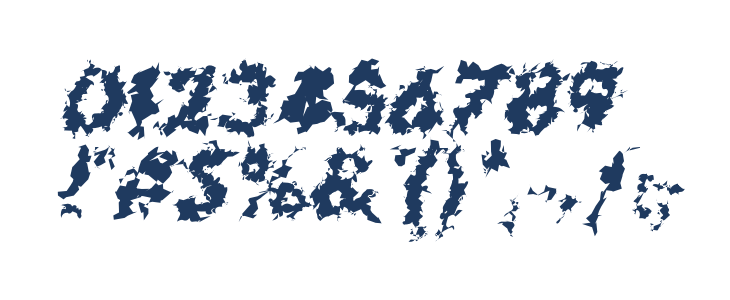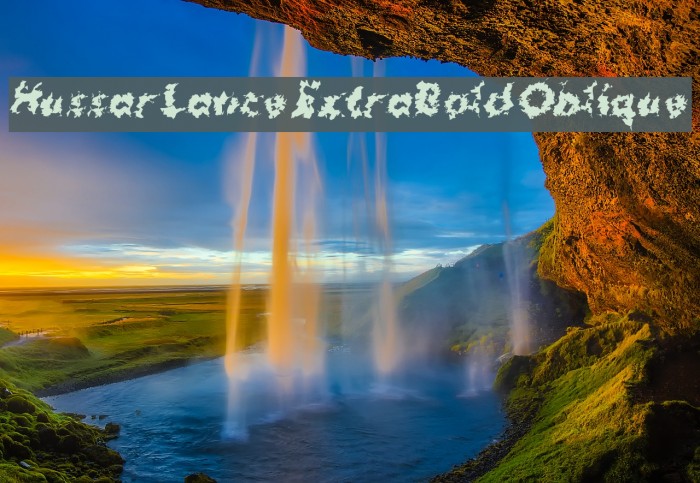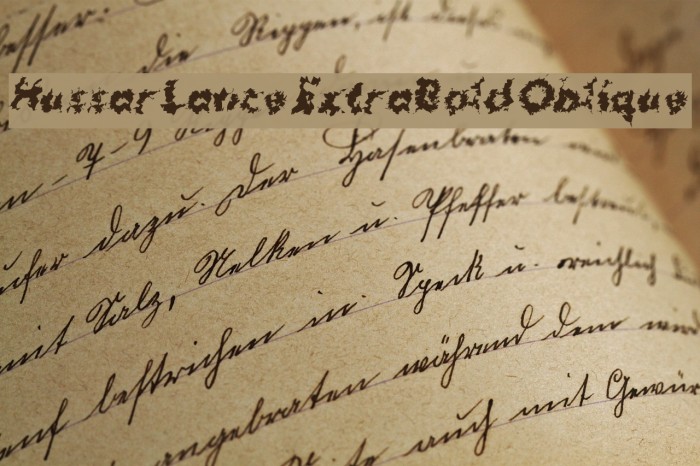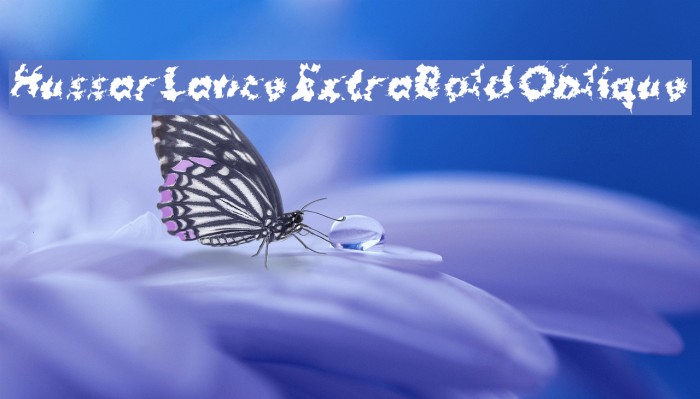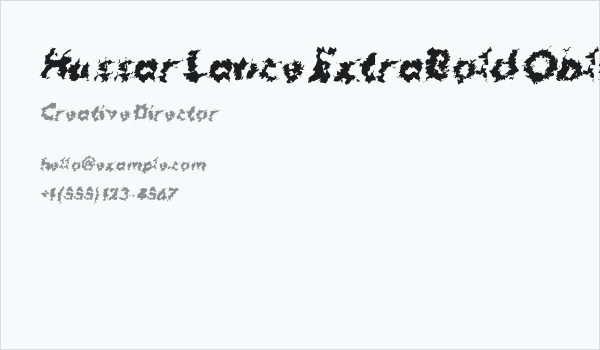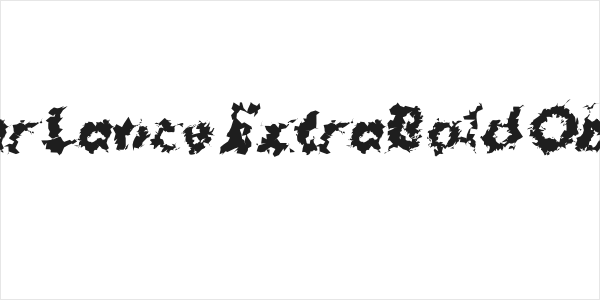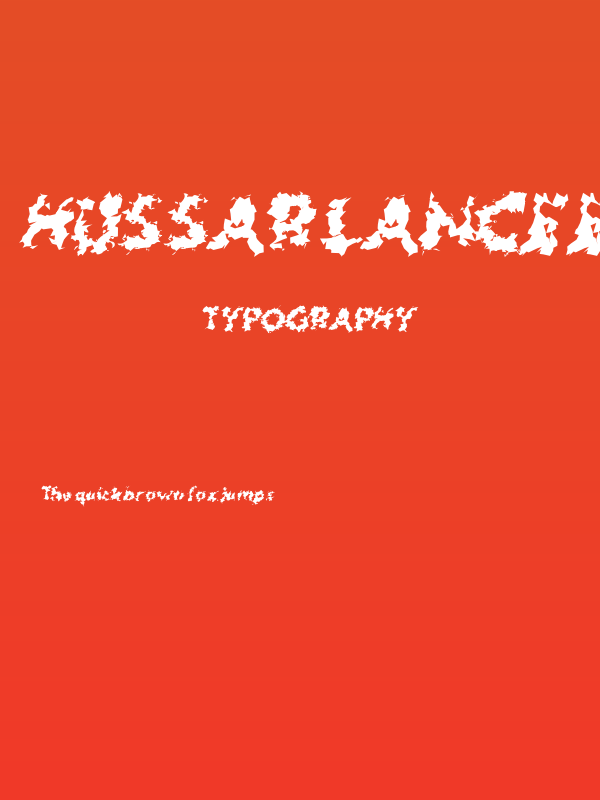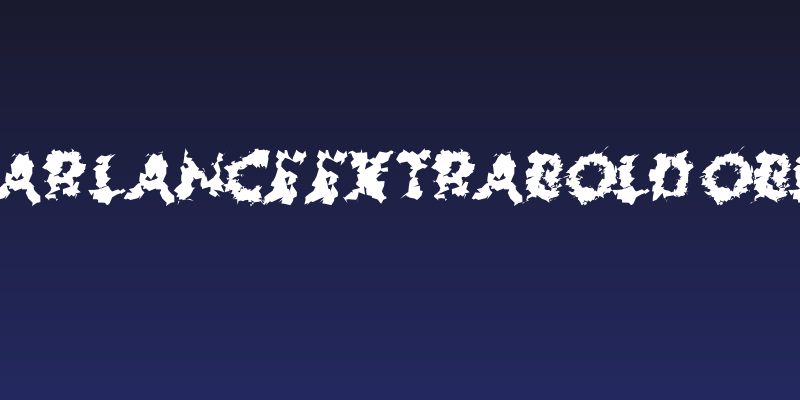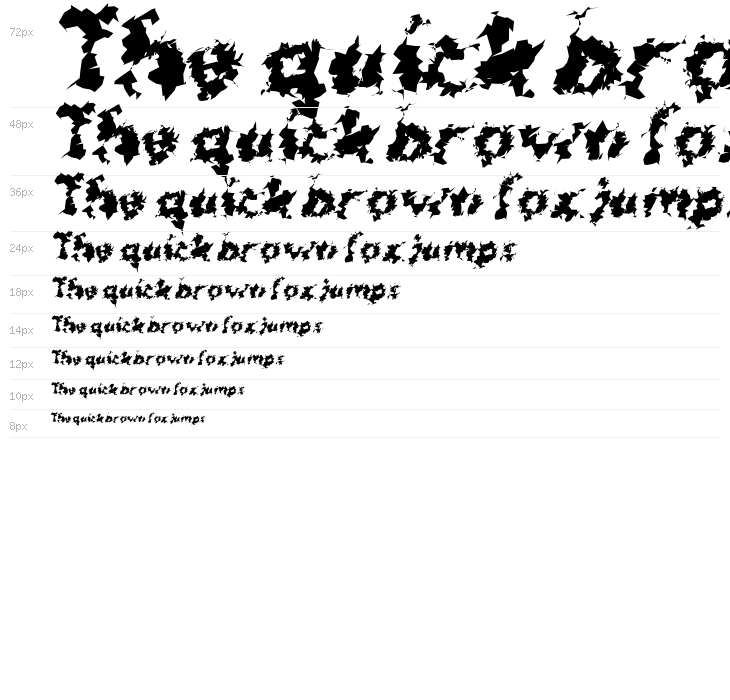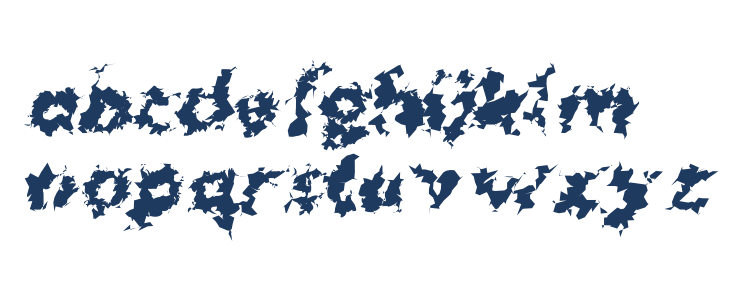
Hussar Lance ExtraBold Oblique Font
Hussar Lance ExtraBold Oblique Description
This font features a highly decorative and bold design with an oblique slant, giving it a dynamic and energetic appearance. The characters are heavily stylized with jagged, irregular edges that create a sense of movement and chaos. The overall look is reminiscent of torn paper or shattered glass, making it stand out with its unique texture. Each letter is distinct, yet they all share the same rough, edgy aesthetic. The font is designed to capture attention and convey a sense of urgency or intensity, making it ideal for impactful visual statements.
Proposed ProjectsIdeal for album covers, posters, or any project requiring a bold, eye-catching design.